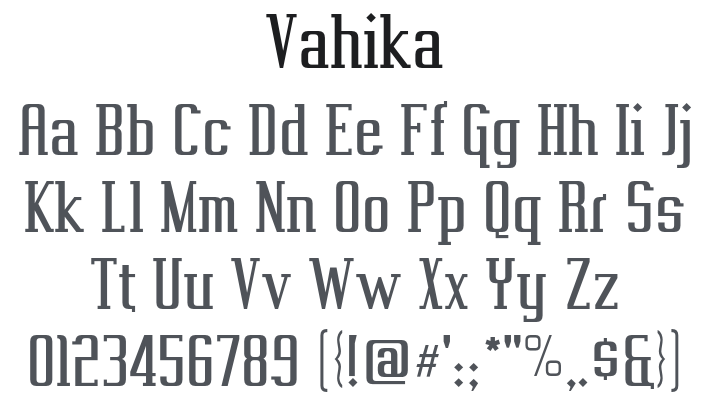
Vahika Font Family
About Vahika
Vahika is a postmodern slab-serif display typeface with precision Art Deco letterforms — clean, architectural strokes meet sharp, squared serifs that capture the fashionable industrial lettering style of the late 1980s. Available in Regular, Italic, Bold, and Bold Italic. Great for editorial headlines, corporate branding, magazine mastheads, tech product design, and any project needing confident, structured sophistication with a quietly modern edge.